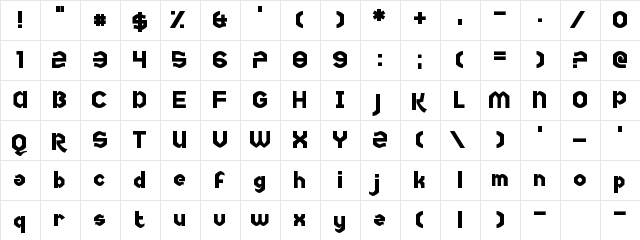
Uncopyrightable Regular
| Designer | AM |
Design Context for Uncopyrightable Typeface
Uncopyrightable takes a measured approach to typography — its balanced proportions and neutral character make it a reliable workhorse for both digital and print work.